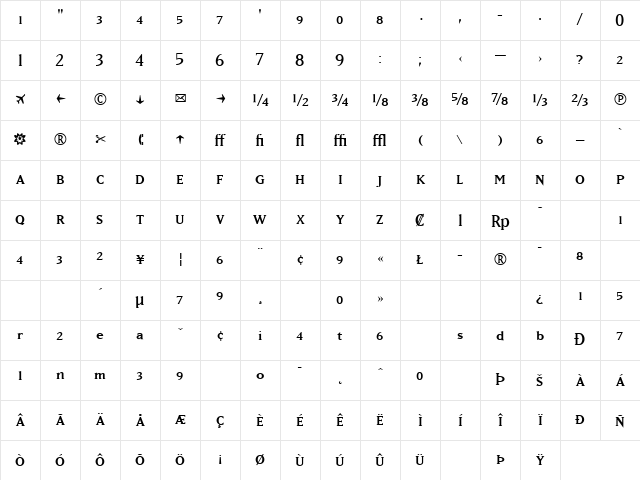
MatrixRegularFractions Regular
MatrixRegularFractions Family
Design Context for MatrixRegularFractions
MatrixRegularFractions is a composed and adaptable typeface that performs quietly and consistently across a wide range of design contexts.